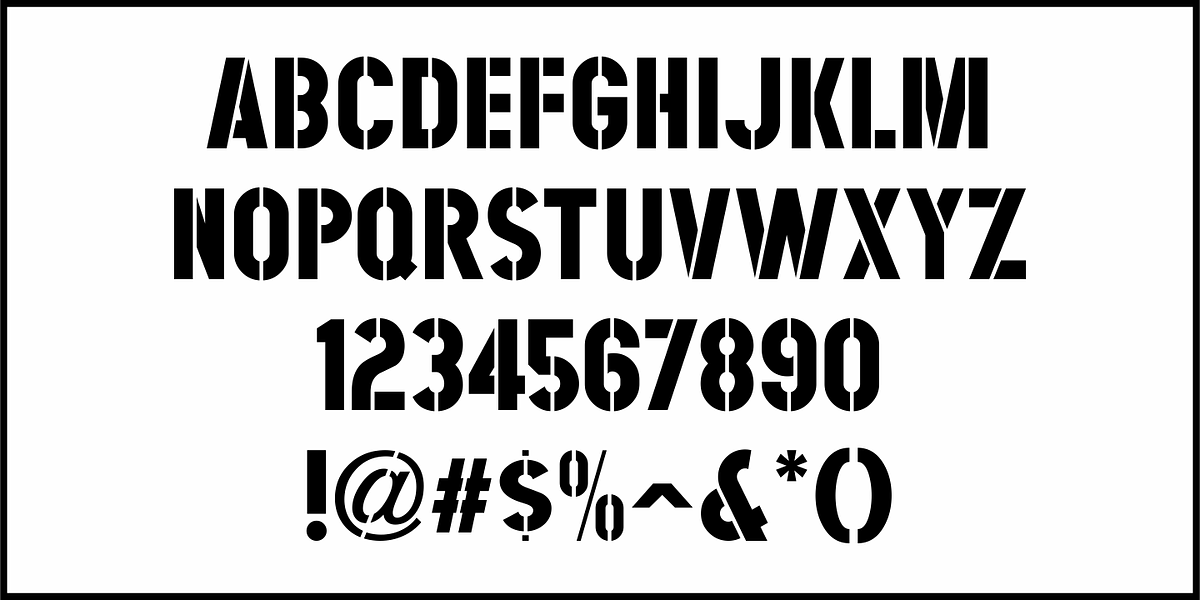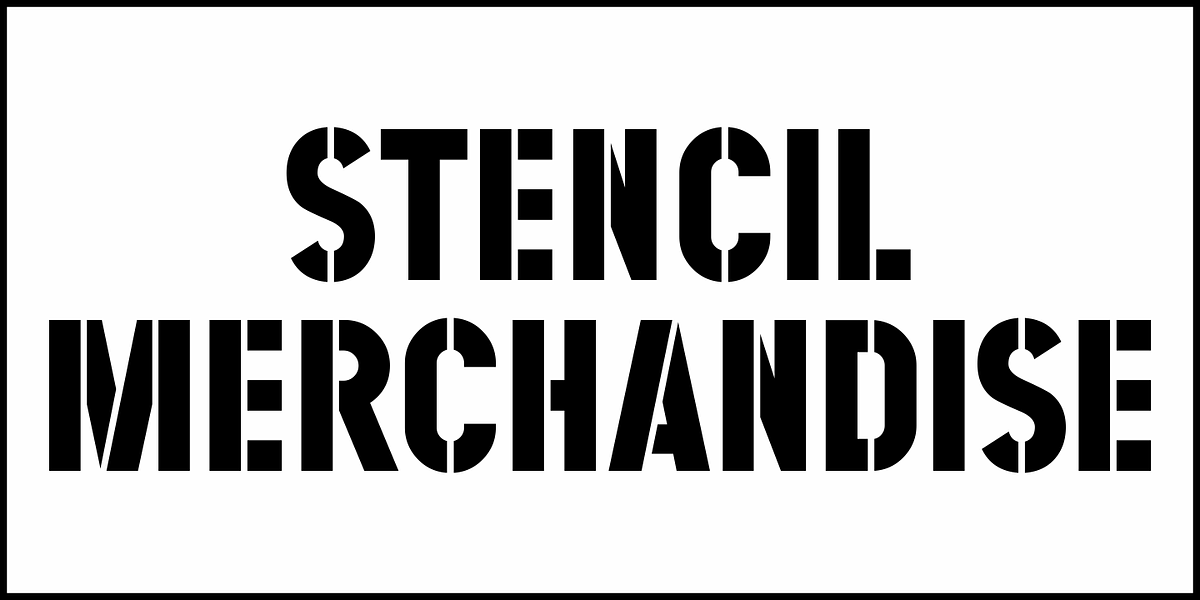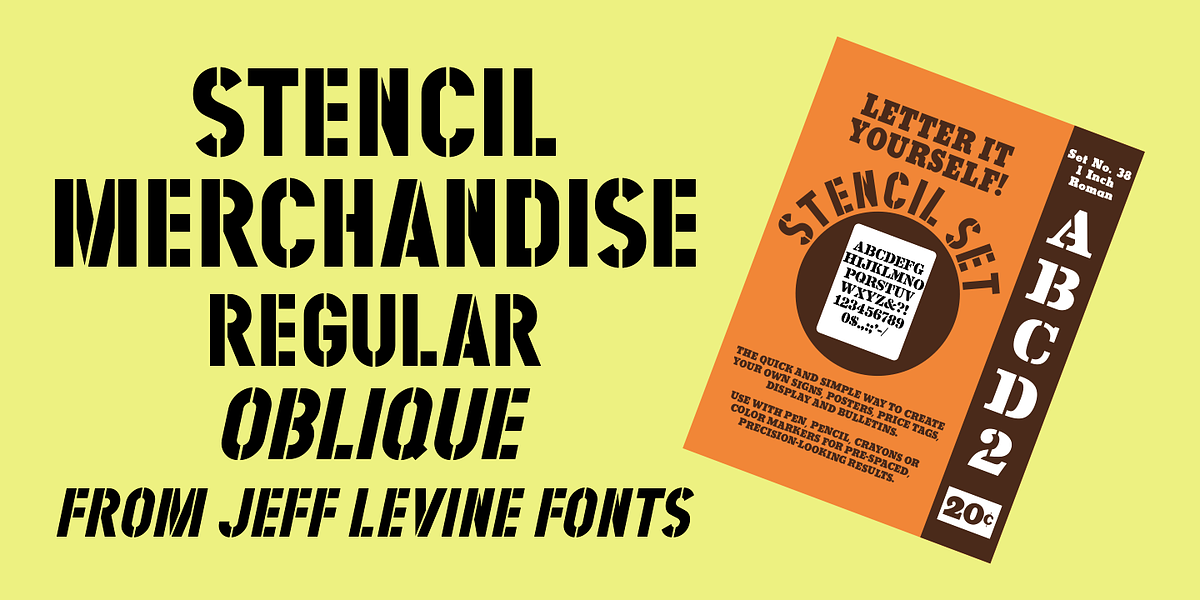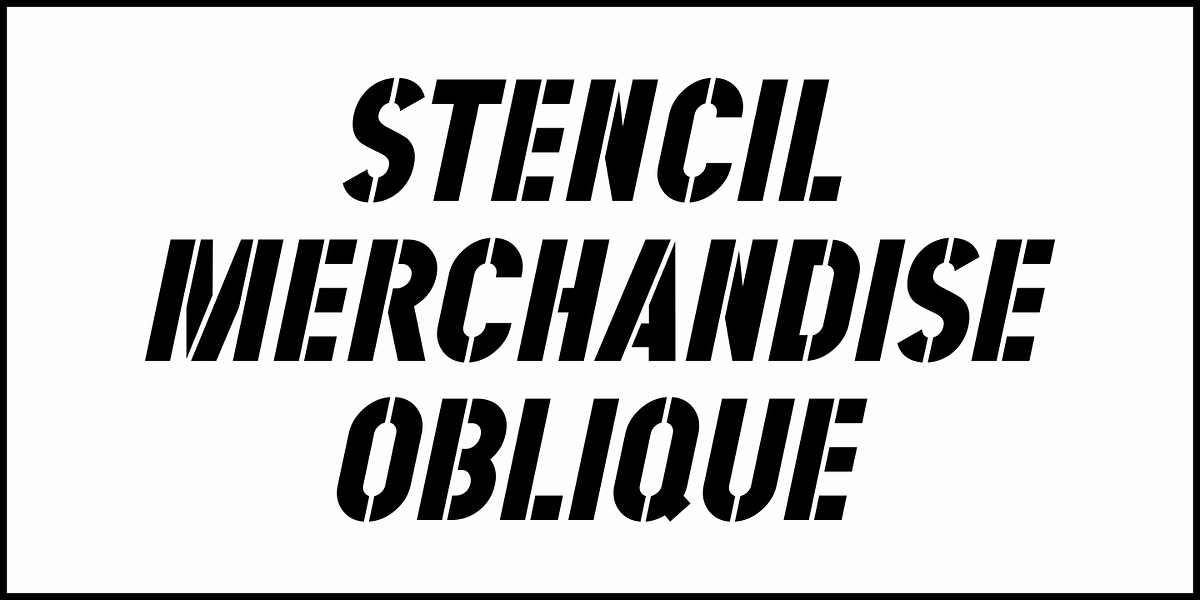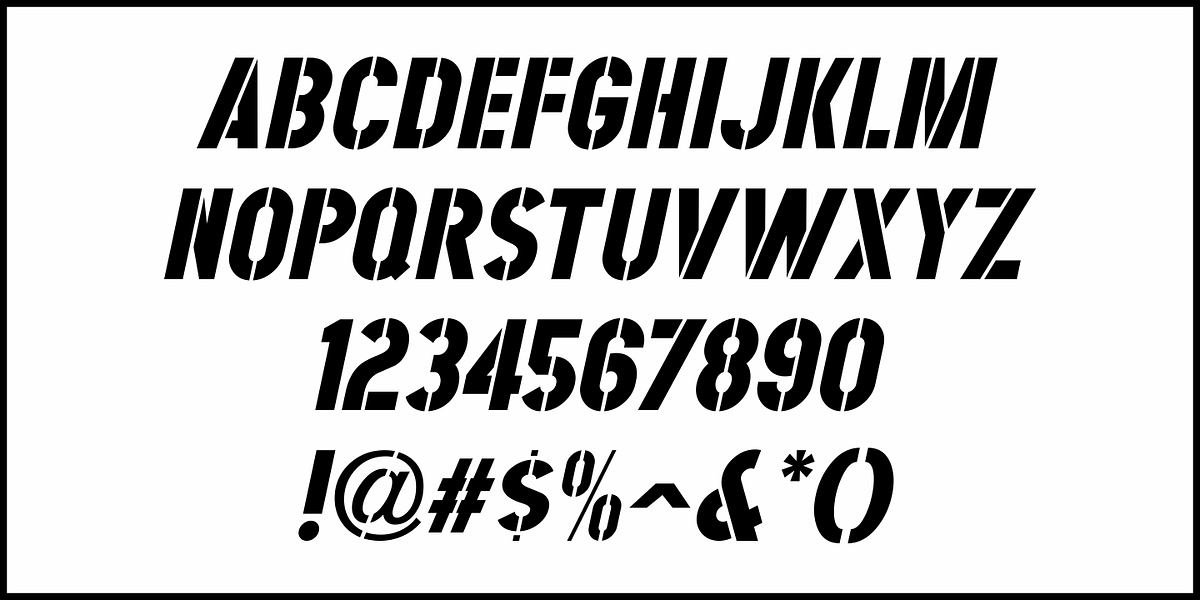
Stencil Merchandise JNL
Inspired by hand lettering on the 1950s packaging for E-Z Letter stencils, Stencil Merchandise JNL is a bold sans serif stencil, and is available in both regular and oblique versions.